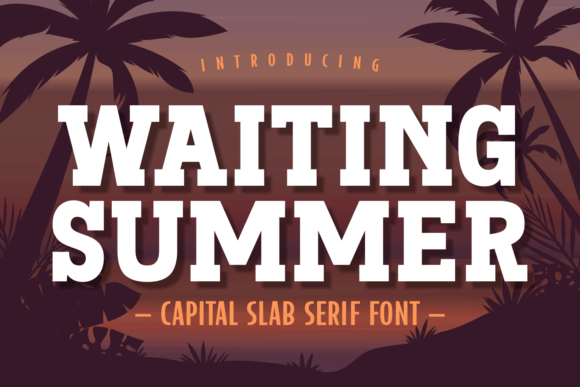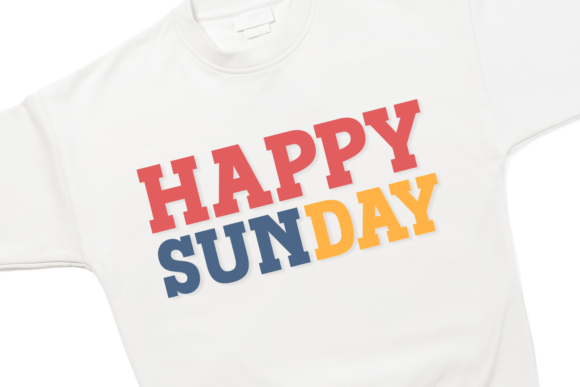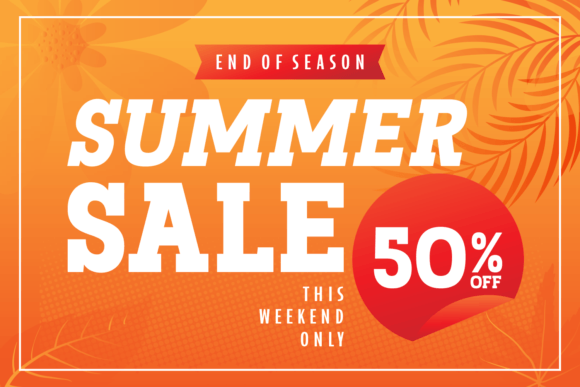
Waiting Summer Font
Waiting Summer is a unique and astounding slab serif font. It is perfect for any branding project such as logos, t-shirt printing, creative products, or pretty much anything that could benefit from a strong serif, clean vibe.